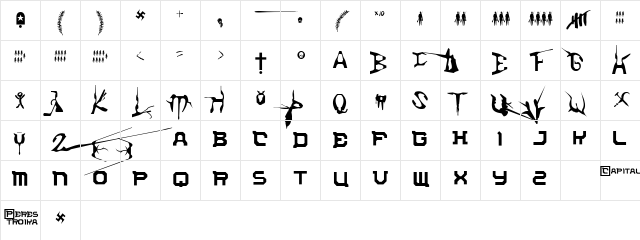
War Medium Free Font
War Medium
Design Context for War
War is a composed and adaptable typeface that performs quietly and consistently across a wide range of design contexts.
Pro Tip: Use War in both headline and body roles to test its range before committing to a single application.